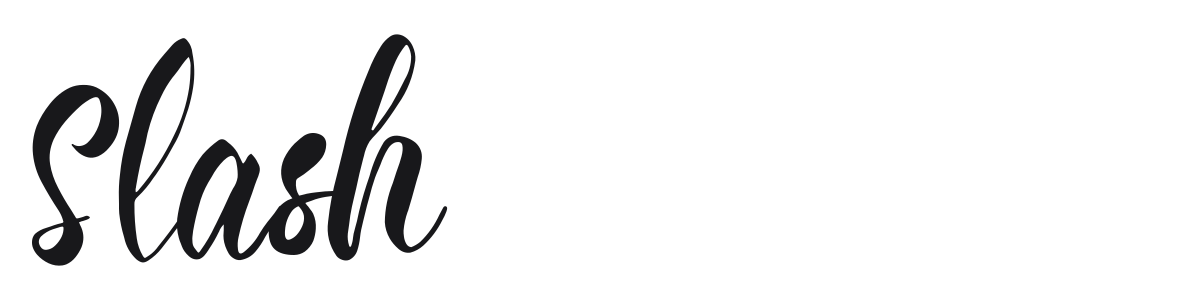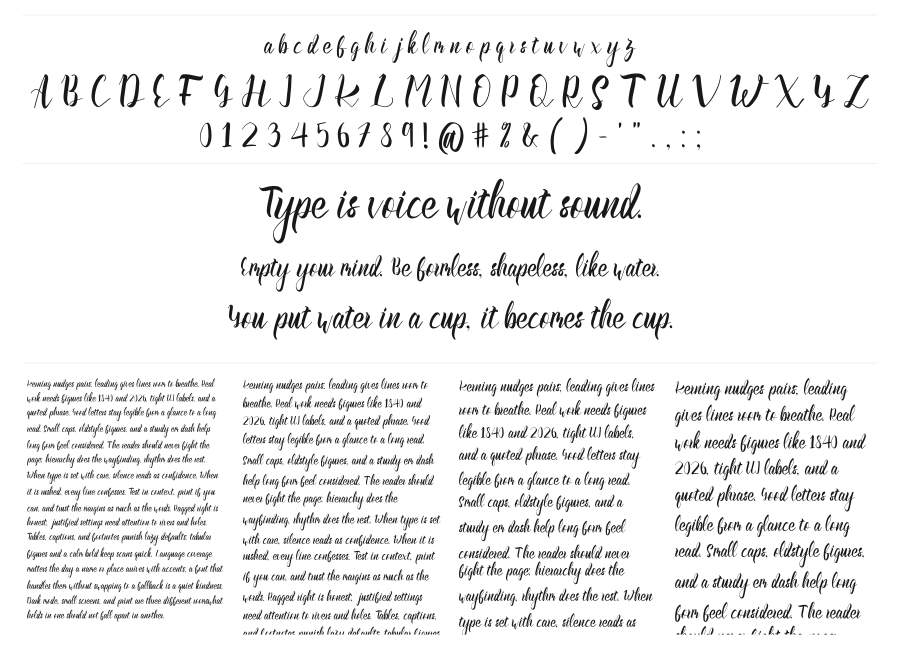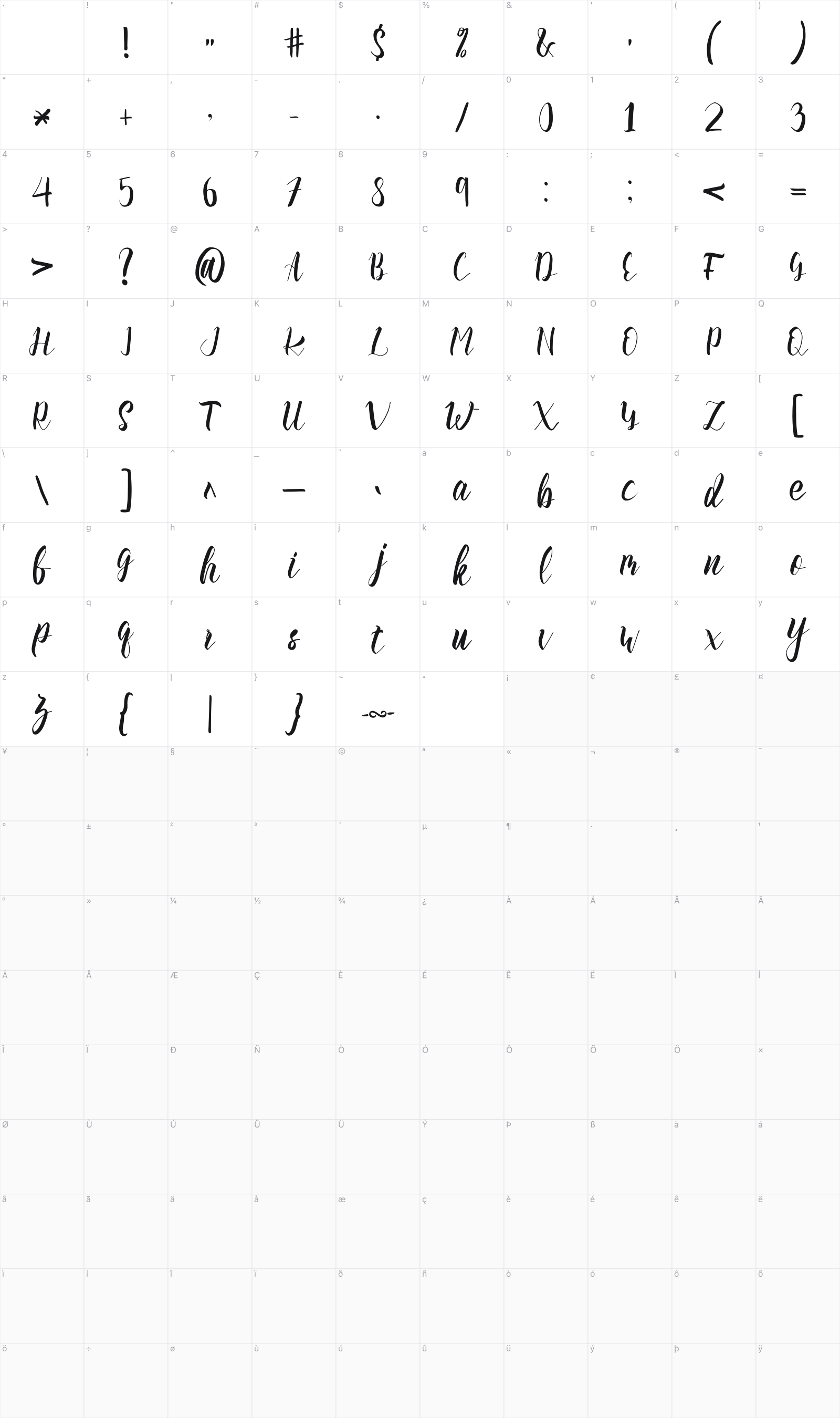
Slash
Slash is a bold casual script with flowing connected strokes and lively calligraphic contrast. The generous swashes, looping ascenders, and interlocking descenders give it an energetic, handcrafted personality that works well at headline sizes. It suits branding, greeting cards, and packaging where a warm, modern handwriting feel is the goal.